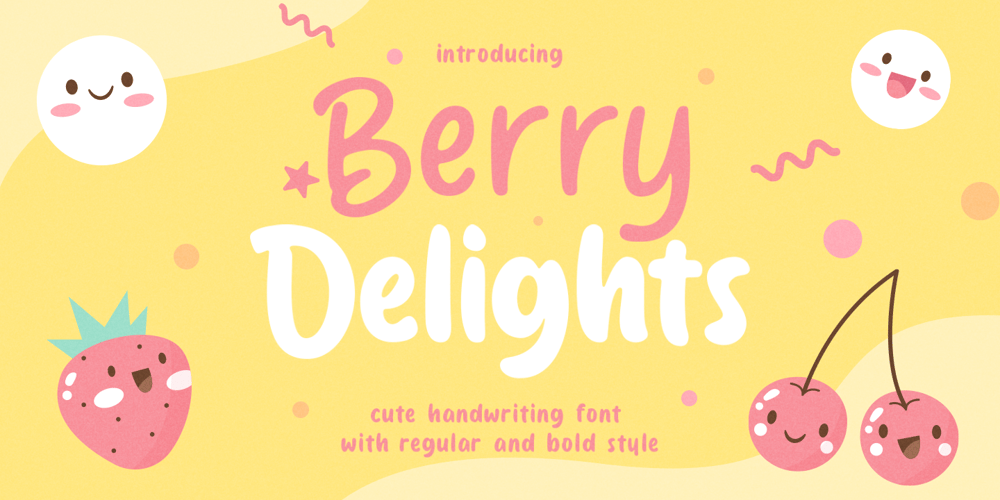
Berry Delights Font Family was designed by Hendry Juanda and published by Letterhend. Berry Delights contains 4 styles and family package options. Berry Delight is a cute hand writing with 4 style, regular, slant, slant bold and bold version. This font perfectly made to be applied especially in logo, and the other various formal forms such as invitations, labels, logos, magazines, books, greeting / wedding cards, packaging, fashion, make up, stationery, novels, labels or any type of advertising purpose.Features : Uppercase & lowercase Numbers and punctuation Alternates & Ligatures Multilingual PUA encoded